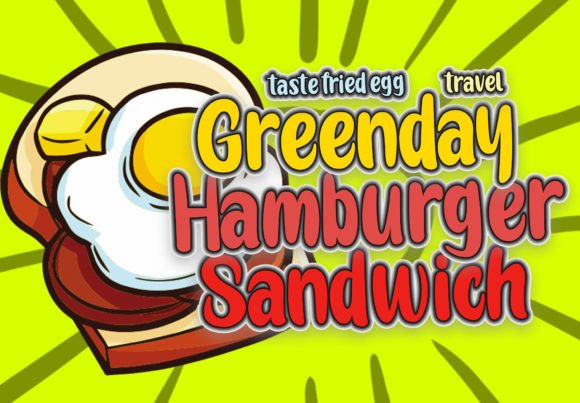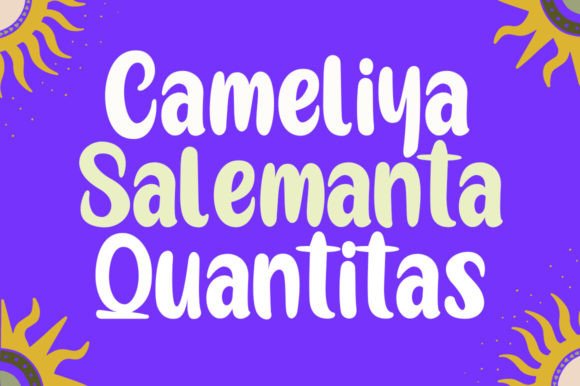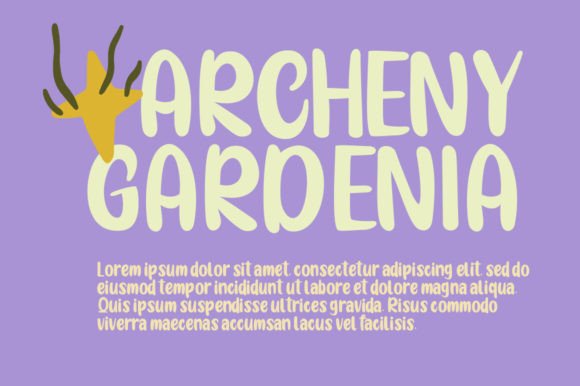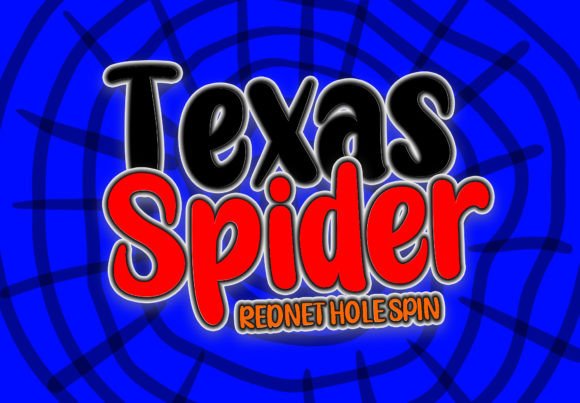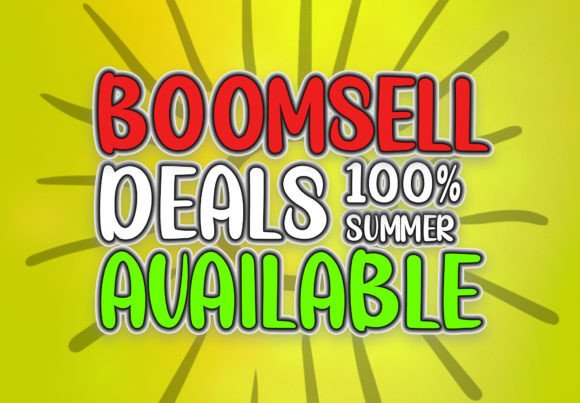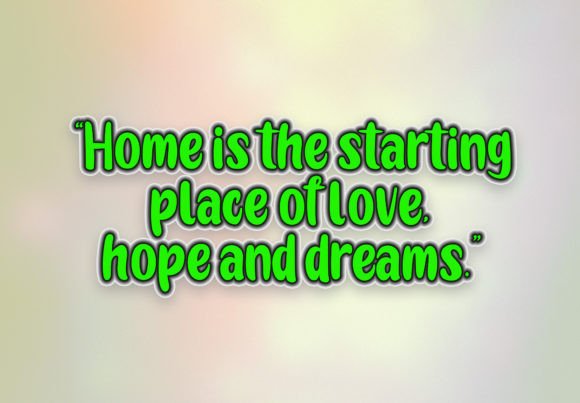
Introduction to Raines Font
Do you ever find yourself staring at a blank canvas, trying to bring a concept to life, but the right words just won’t come? For designers, this is a common creative struggle. But what if you had the perfect tool to add some personality to your projects and make your ideas shine?
Enter the Raines Font, a bold handwritten font that exudes a natural touch and unique character. This design resource is perfect for adding a touch of elegance and sophistication to your creative projects. Whether you’re working on a branding project, a marketing campaign, or a personal art piece, the Raines Font is sure to impress.
As a free download, this high-quality font is accessible to designers of all levels, and its transparent background makes it easy to customize and integrate into your design. In this article, we’ll explore the world of Raines Font and show you why it’s a valuable addition to your design toolkit.
Key Features of Raines Font
• High-quality, professional font ideal for creative projects and designs
• Raines Font features a transparent background, allowing for easy layering and customization
• Includes a wide range of characters, including uppercase and lowercase letters, numbers, and punctuation marks
• Designed with a modern and sleek aesthetic, making it perfect for a variety of creative projects, from logos to typography-based designs
• Resolution: 300 DPI, ensuring high-quality output and crisp text rendering
Honest Review: Raines Font
As a designer, I’m always on the lookout for high-quality design resources that can elevate my creative projects. The Raines Font caught my eye with its clean and modern aesthetic, making it a great addition to my design arsenal.
Here are some of the things that work well with Raines Font: ✨
• High-quality design: The font is crisp and clear, making it perfect for print and digital applications.
• Transparent background: This makes it easy to use the font on top of images or other design elements.
• Limited character set: The font only includes a limited number of characters, which may not be suitable for projects that require a full character set.
• No bold or italic versions: While the font is clean and modern, it may not be suitable for projects that require bold or italic text.
Overall, I’m impressed with the Raines Font and would definitely recommend it to designers who are looking for a high-quality, modern font for their creative projects.
Raines Font
Tips for Getting the Most Out of Raines Font
Here are a few tips for getting the most out of Raines Font:
• Use Raines Font in conjunction with other high-quality design resources to create a cohesive and professional look.
• Experiment with different font sizes and styles to add visual interest to your design.
• Use Raines Font on a transparent background to create a clean and modern design.
Common Use Cases for Raines Font
Raines Font is a versatile font that can be used in a variety of creative projects, including:
• Social media graphics
• Flyers and brochures
• Presentation slides
• Documents and reports
Alternatives to Raines Font
The Great Vibes Font is a modern, elegant script font that’s perfect for creative projects requiring a high-end design resource. It’s available for free download and offers a transparent background, making it ideal for use on various design elements. Great Vibes Font is similar to Raines Font in its flowing, handwritten style but has a more refined and sophisticated look.
Does the Raines Font have a transparent background?
Yes, the Raines Font has a transparent background, making it easy to use in design projects that require a clear or see-through background. This feature is especially useful for creating designs with a clean and minimalist look. Simply use the font in combination with a transparent background image or layer to achieve the desired effect.